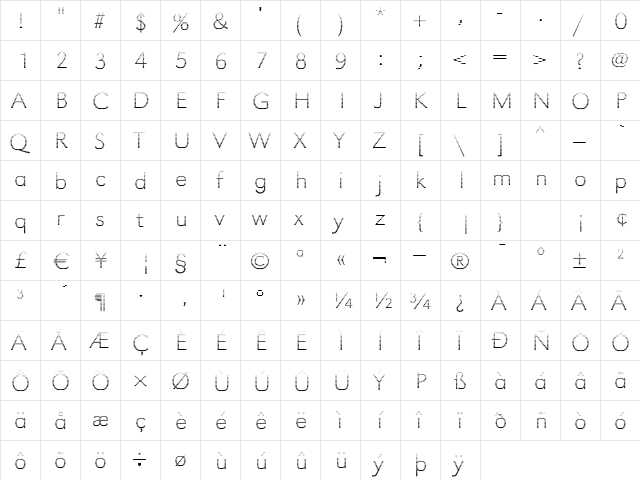
TomBeckerGradientE-Xlight Normal Font Preview
TomBeckerGradientE-Xlight Normal
Design Context for TomBeckerGradientE-Xlight Typeface
TomBeckerGradientE-Xlight offers clean, dependable letterforms without strong stylistic allegiance, making it a practical choice for designers who need flexibility. Its slender proportions lend an understated elegance to any composition.
Pro Tip: Pair TomBeckerGradientE-Xlight with a font of contrasting weight or personality to build a more expressive typographic hierarchy.